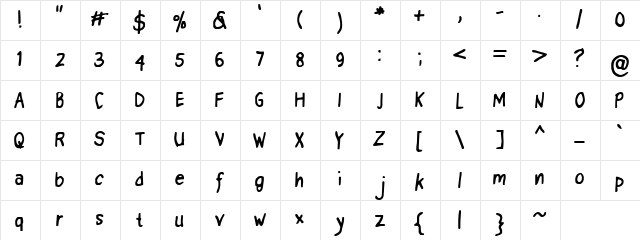
I Tried To Print Neat I Tried To Print Neat
Design Context for I Tried To Print Neat Typeface
I Tried To Print Neat is a composed and adaptable typeface that performs quietly and consistently across a wide range of design contexts.